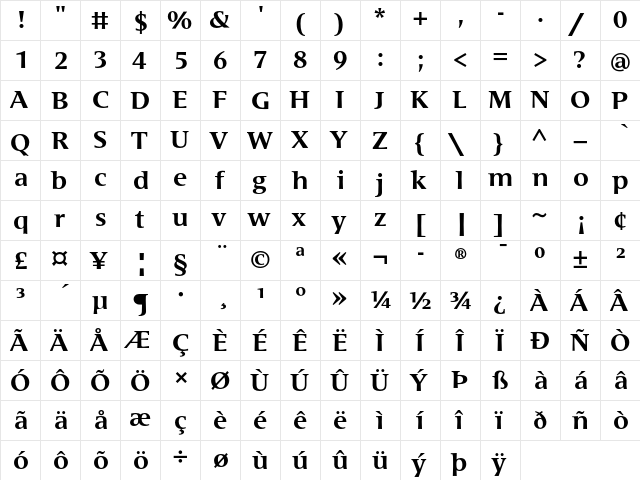
Areplos Book Pro Bold
| Designer | Jan Solpera |
Design Context for Areplos Book Pro Typeface
Areplos Book Pro offers clean, dependable letterforms without strong stylistic allegiance, making it a practical choice for designers who need flexibility. Its bold stroke weight gives it real presence on the page.
Pro Tip: Pair Areplos Book Pro with a font of contrasting weight or personality to build a more expressive typographic hierarchy.